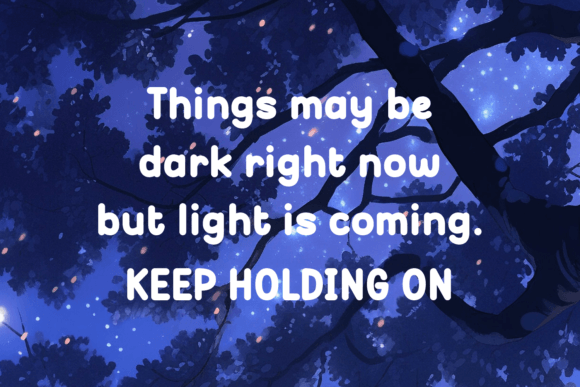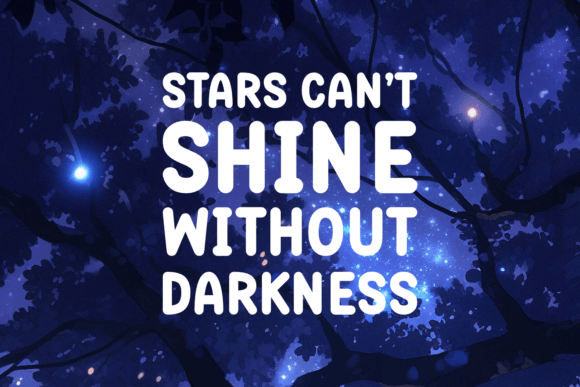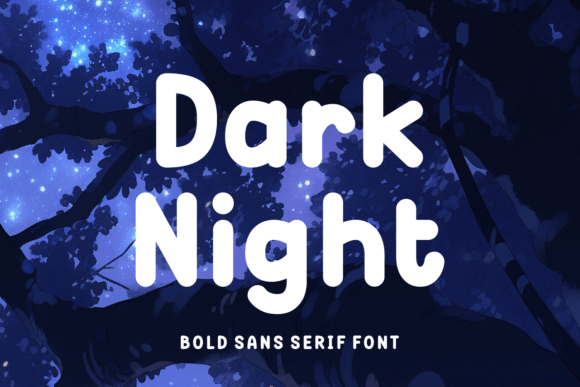
Unleash the Power of Typography with Dark Night Font
In the world of typography, fonts play a crucial role in conveying messages, expressing emotions, and creating a lasting impression. For designers and crafters, selecting the right font can make all the difference in bringing their creative vision to life. One such font that has been making waves in the design community is the Dark Night Font – a bold sans-serif typeface that exudes strength, modernity, and confidence.
The Anatomy of Dark Night Font
Dark Night is a bold sans-serif font that boasts clean lines, robust letterforms, and a sleek appearance. The absence of serifs gives this font a streamlined look, making it perfect for projects that require a strong and contemporary typographic style. The font’s bold and sturdy design makes it an excellent choice for headlines, titles, logos, and branding materials, where making a bold statement is crucial.
Key Features of Dark Night Font
• Bold and Robust Design: Dark Night’s bold design ensures that your text grabs attention and makes a lasting impression.
• Clean Lines and Minimalist Approach: The font’s clean lines and minimalist approach give it a modern and sleek appearance.
• Sans-Serif Design: The absence of serifs makes Dark Night perfect for digital and print projects that require a contemporary typographic style.
• High Versatility: Dark Night can be used for a wide range of projects, from headlines and titles to logos and branding materials.
Use Cases for Dark Night Font
Dark Night’s versatility and bold design make it an excellent choice for various design projects. Here are some use cases where Dark Night can shine:
• Headlines and Titles: Use Dark Night to create attention-grabbing headlines and titles that set the tone for your content.
• Logos and Branding Materials: Dark Night’s bold design makes it perfect for creating logos, business cards, and other branding materials that require a strong and modern typographic style.
• Advertising and Marketing Materials: Use Dark Night to create eye-catching ads, brochures, and flyers that demand attention.
• Web Design and Development: Dark Night can be used for website headers, titles, and other typographic elements to create a strong and contemporary online presence.
Why Choose Dark Night Font?
With so many fonts available, why choose Dark Night? Here are some compelling reasons to consider:
• Unique and Memorable: Dark Night’s bold design ensures that your text stands out and leaves a lasting impression.
• Professional and Sophisticated: The font’s clean lines and minimalist approach give it a professional and sophisticated look.
• Highly Versatile: Dark Night can be used for a wide range of projects, making it an excellent addition to your font library.
• Easy to Read: Despite its bold design, Dark Night is easy to read, making it perfect for body text and other typographic elements.
Dark Night Font is a powerful and versatile typeface that can elevate your design projects to new heights. Its bold and robust design, clean lines, and minimalist approach make it perfect for projects that require a strong and contemporary typographic style. Whether you’re a designer, crafter, or simply someone who appreciates great typography, Dark Night is an excellent choice for your next project. So why wait? Unleash the power of Dark Night Font and take your designs to the next level!